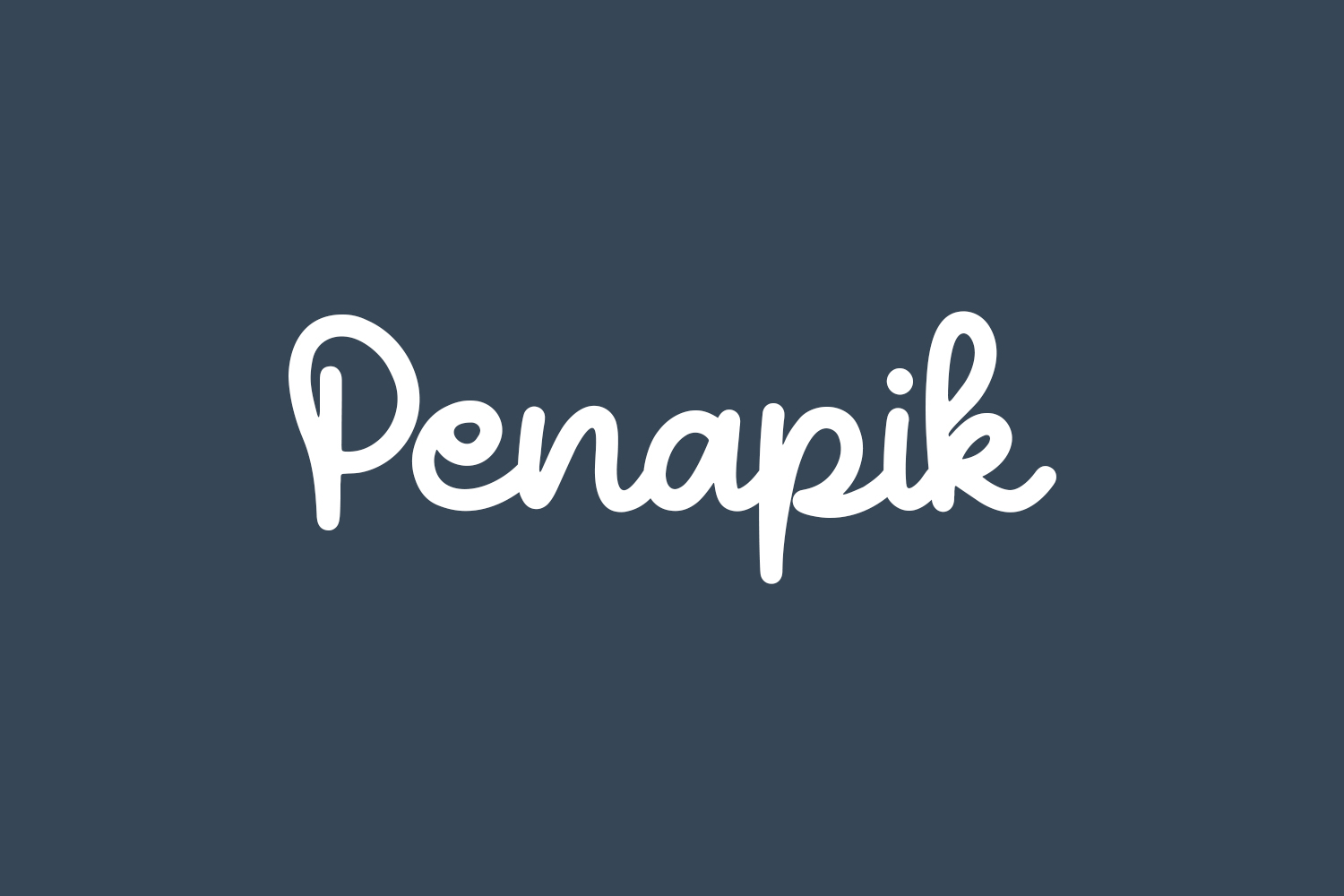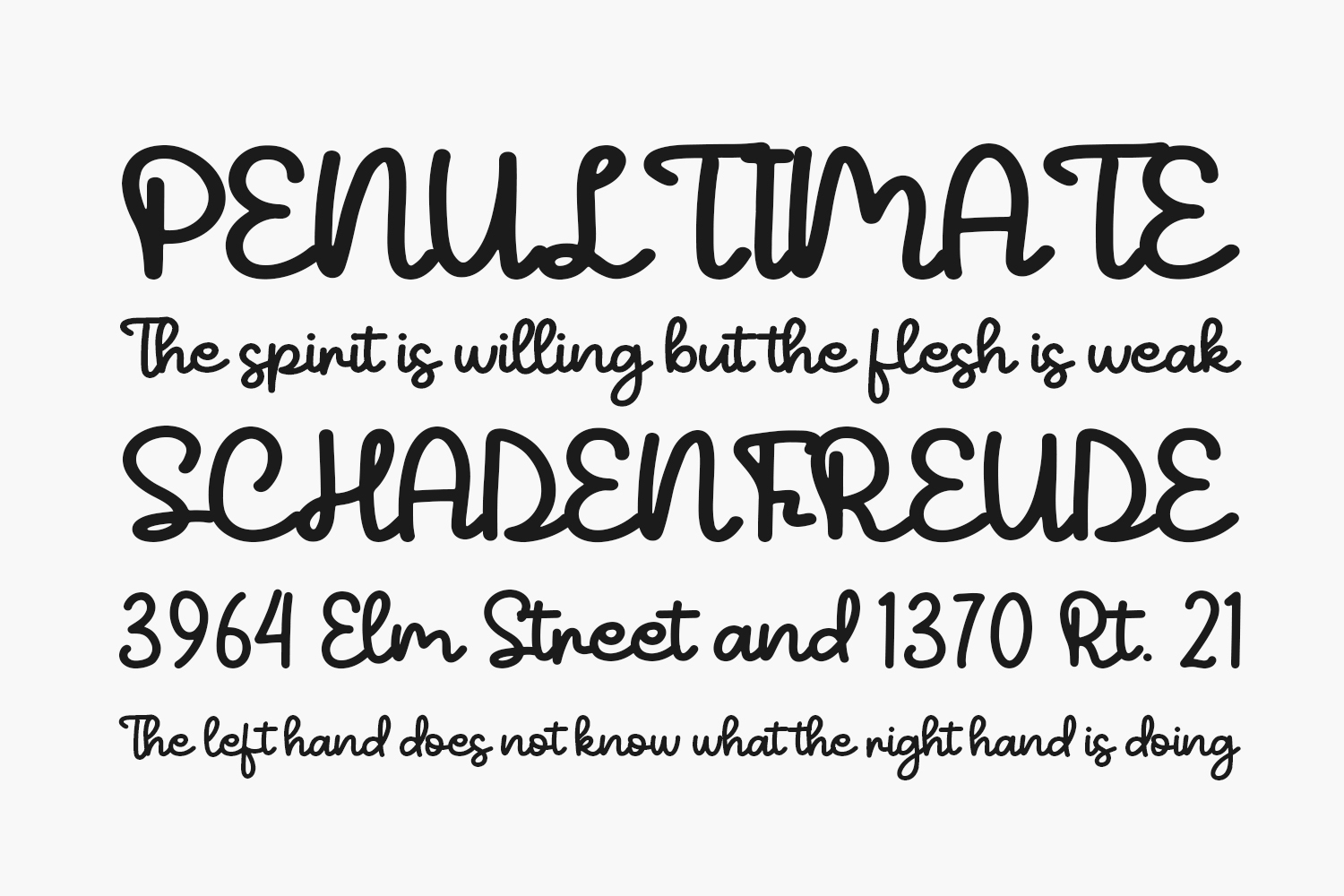
Penapik Free Font is a flowing handwritten font, described by an elegant touch, perfect for your favorite projects. Fall in love with its incredibly distinct and timeless style and use it to create spectacular designs. Penapik Free Font is free for personal use only. Please purchase the full version for commercial use.